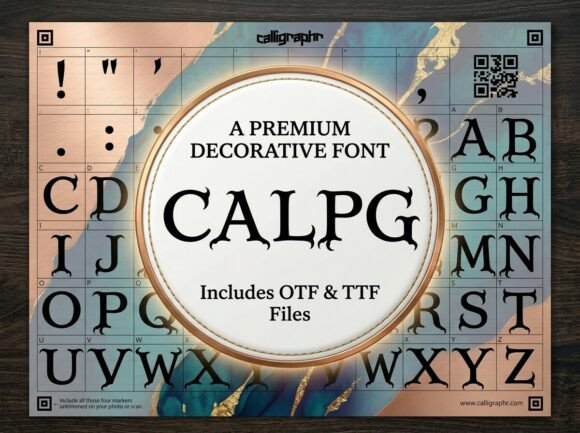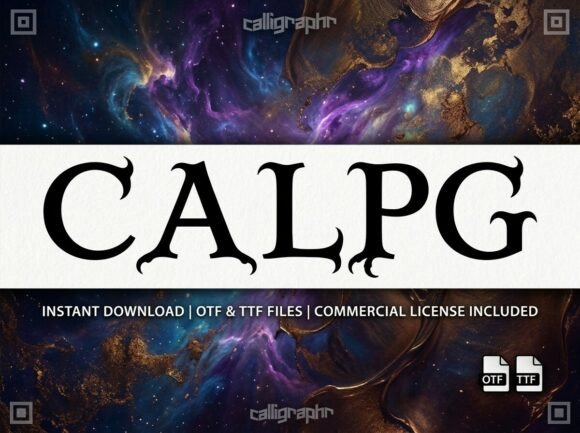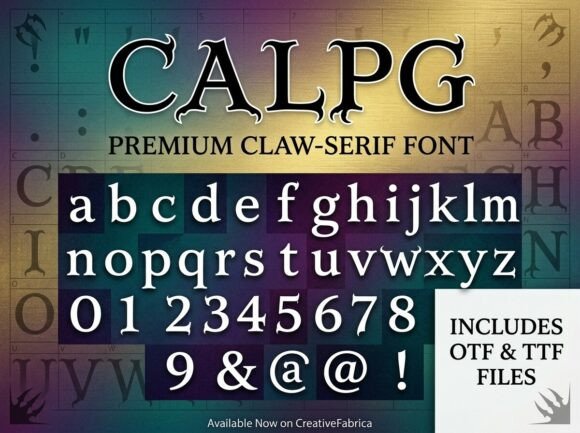
Introducing Calpg Font: The Ultimate Display Font for Creative Minds
Are you tired of using the same old fonts for your designs? Look no further! Calpg Font is a stunning decorative display font that is sure to turn heads. With its unique artistic elements and strong visual personality, this font is perfect for creators who want to break away from the ordinary and make a statement.
Calpg Font is designed to be the center of attention. Its bold and eye-catching design makes it ideal for use in headlines, logos, and decorative initials. Whether you’re working on a branding project, a marketing campaign, or a personal design venture, this font is sure to make your work stand out from the crowd.
One of the best things about Calpg Font is its versatility. This font is perfect for a wide range of design applications, from bold headlines and artistic logos to creative packaging and more. And with its professional and polished finish, you can use it with confidence, knowing that your designs will look great on any device or platform.
Why Choose Calpg Font?
So why choose Calpg Font over other display fonts on the market? Here are just a few reasons:
- Unique Design: Calpg Font features a unique and artistic design that is sure to turn heads.
- High-Impact: This font is specifically designed for high-impact headlines, logos, and decorative initials.
- Professional Finish: Calpg Font has a professional and polished finish that will elevate your designs to the next level.
- Versatile: This font is perfect for a wide range of design applications, from bold headlines and artistic logos to creative packaging and more.
- Use it for Headlines: Calpg Font is perfect for use in headlines and titles. Its bold and eye-catching design makes it ideal for grabbing attention.
- Experiment with Colors: Try using Calpg Font with different colors and textures to add depth and interest to your designs.
- Pair it with Other Fonts: Calpg Font pairs well with a wide range of other fonts. Try pairing it with a clean and simple font for a bold and eye-catching contrast.
Calpg Font is a stunning decorative display font that is sure to elevate your designs to the next level. With its unique artistic elements and strong visual personality, this font is perfect for creators who want to break away from the ordinary and make a statement. Whether you’re working on a branding project, a marketing campaign, or a personal design venture, Calpg Font is the perfect choice.